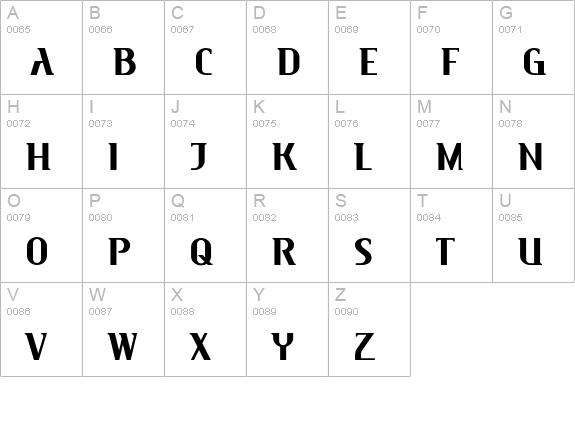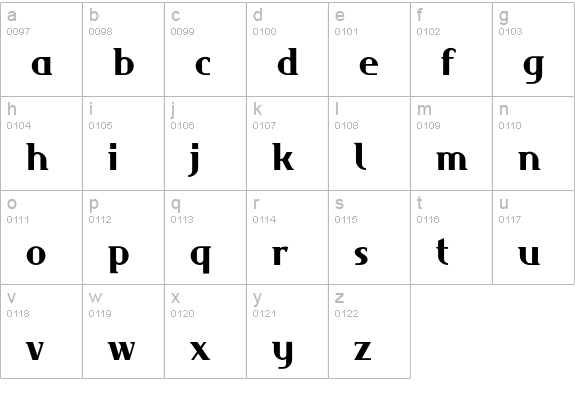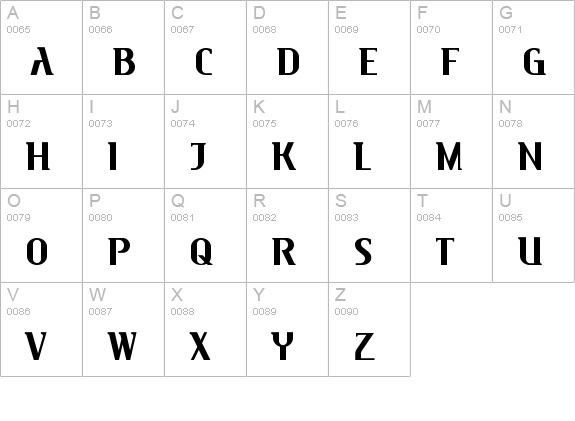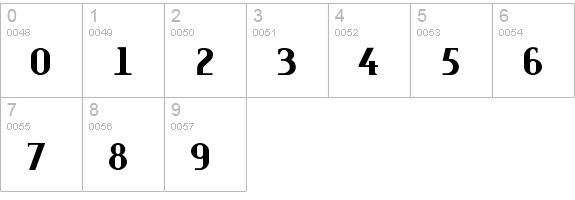
Maverick-Bold is a strong, high-contrast variant in the Maverick typeface family \xE2\x80\x94 well suited to headlines, attention-grabbing titles, and strong calls-to-action.
Maverick-Bold is a striking and versatile font that exudes confidence and modernity. With its bold and impactful design, Maverick-Bold is perfect for making a statement in any project, whether it be for branding, advertising, or graphic design. Its clean lines and strong presence make it a go-to choice for designers looking to add a touch of boldness to their work. The best part? Maverick-Bold is completely free to download at FontsMarket.com. This means that you can access this powerful font without any cost, making it an essential addition to your font library. Don't miss out on the opportunity to enhance your projects with the dynamic energy of Maverick-Bold. Download it today and let your creativity run wild!